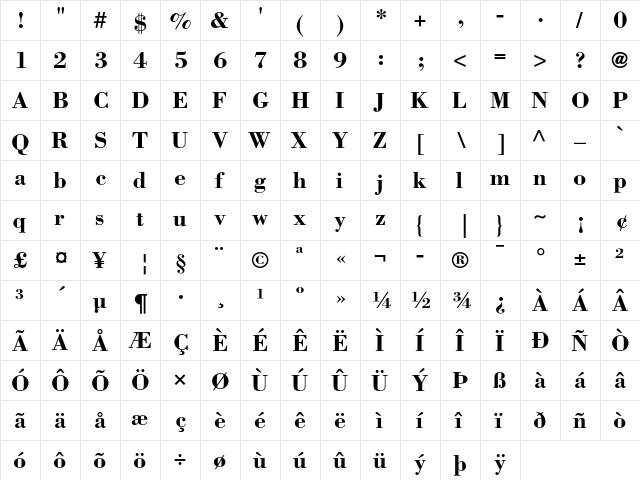
Bodoni Bold Font Preview
Bodoni Bold
Design Context for Bodoni Typeface
Bodoni offers clean, dependable letterforms without strong stylistic allegiance, making it a practical choice for designers who need flexibility. The heavy weight commands attention and anchors typographic hierarchies.
Pro Tip: Pair Bodoni with a font of contrasting weight or personality to build a more expressive typographic hierarchy.